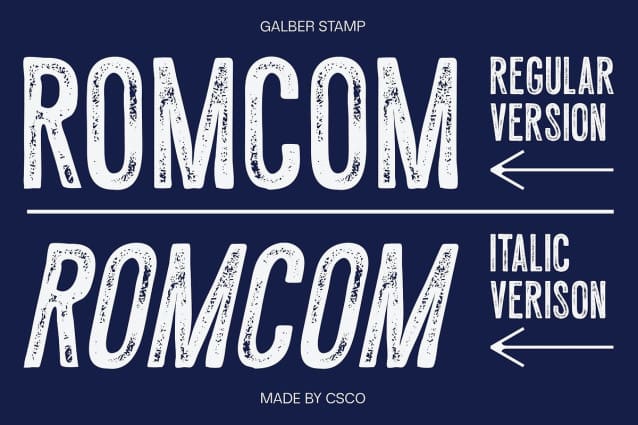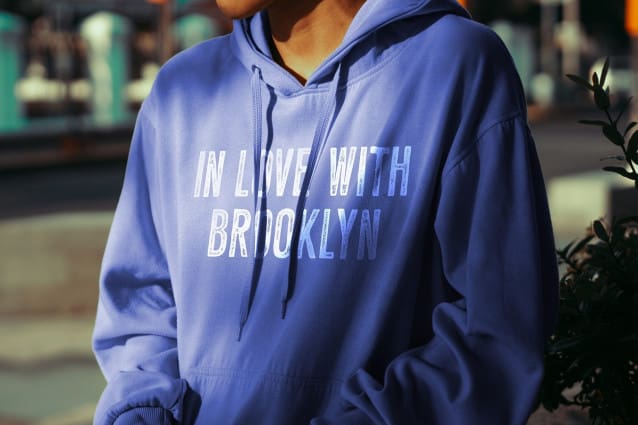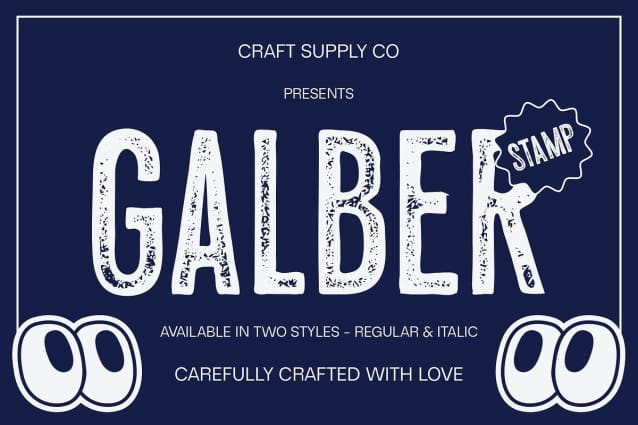
Galber Stamp Font
Galber Stamp Font is a modern sans-serif font that merges a condensed, compact shape with a distinctive stamp effect. The sleek and space-efficient design is complemented by a rough, uneven print texture, giving the font a vintage or grunge aesthetic. The stamp effect introduces messy edges and slightly distorted areas, adding a unique character to the clean, modern forms.
Characterful Texture for Unique Designs The stamp effect of Galber Stamp infuses the font with a retro or industrial vibe, creating a striking contrast with its otherwise sleek appearance. This combination of a condensed shape and rough texture results in a strong, characterful look that stands out. The uneven print texture adds an authentic, hand-crafted touch, enhancing the font’s overall uniqueness.
Perfect for Branding, Posters, and More Galber Stamp is ideal for designs that require a distinctive and eye-catching appearance. Its strong, characterful design makes it perfect for applications like branding, posters, and promotional materials that aim to convey a retro or industrial feel. This font’s blend of modern efficiency and vintage texture ensures a memorable and impactful presence in any creative project.